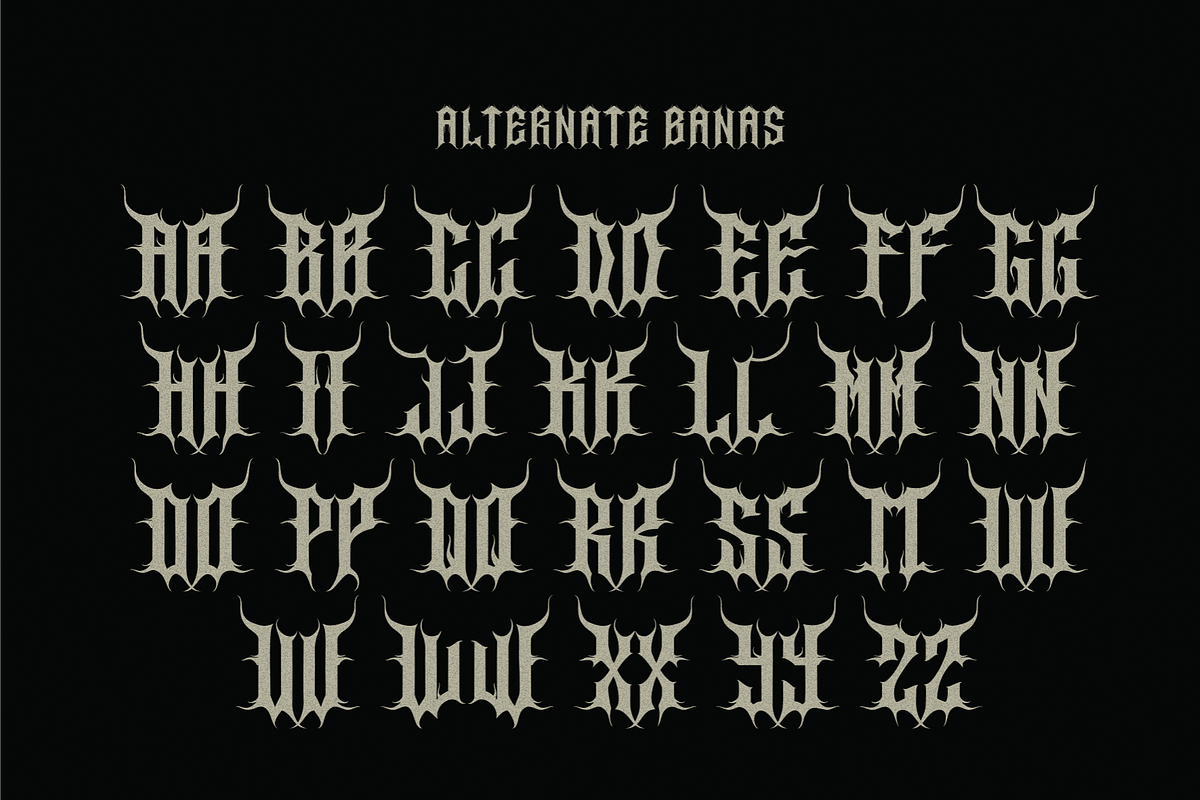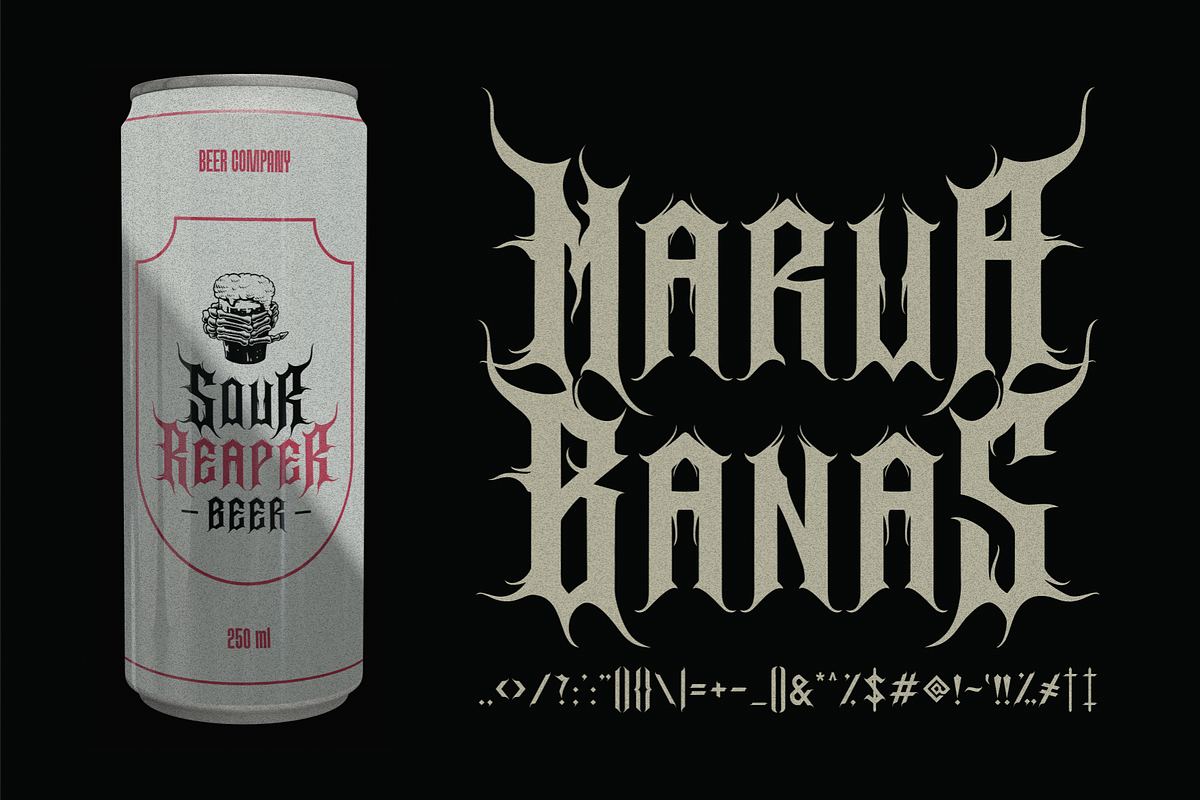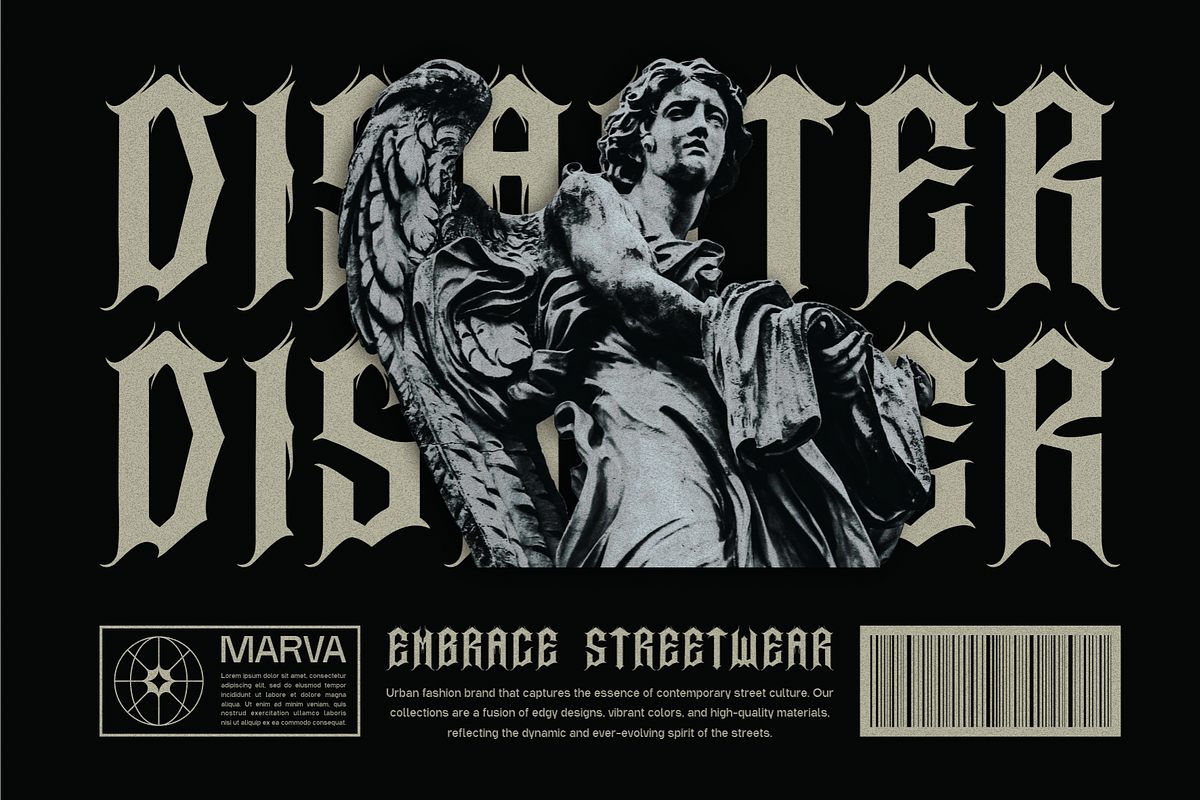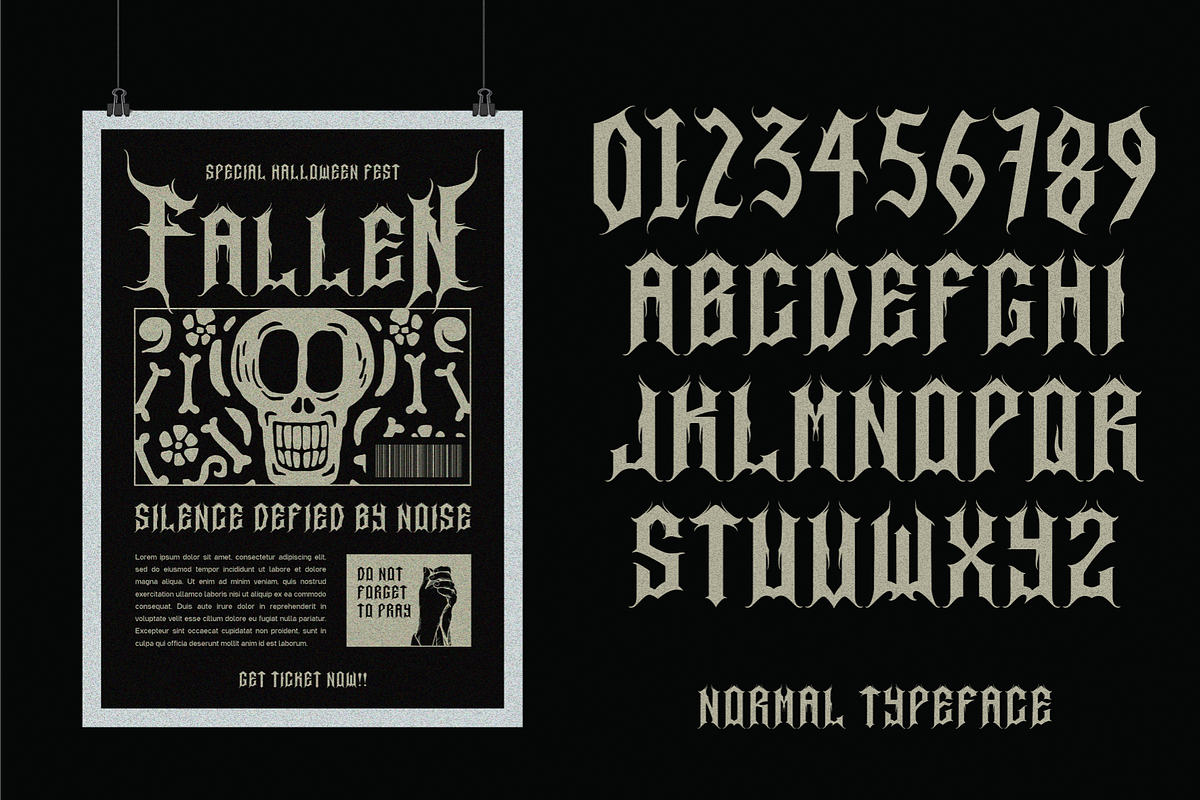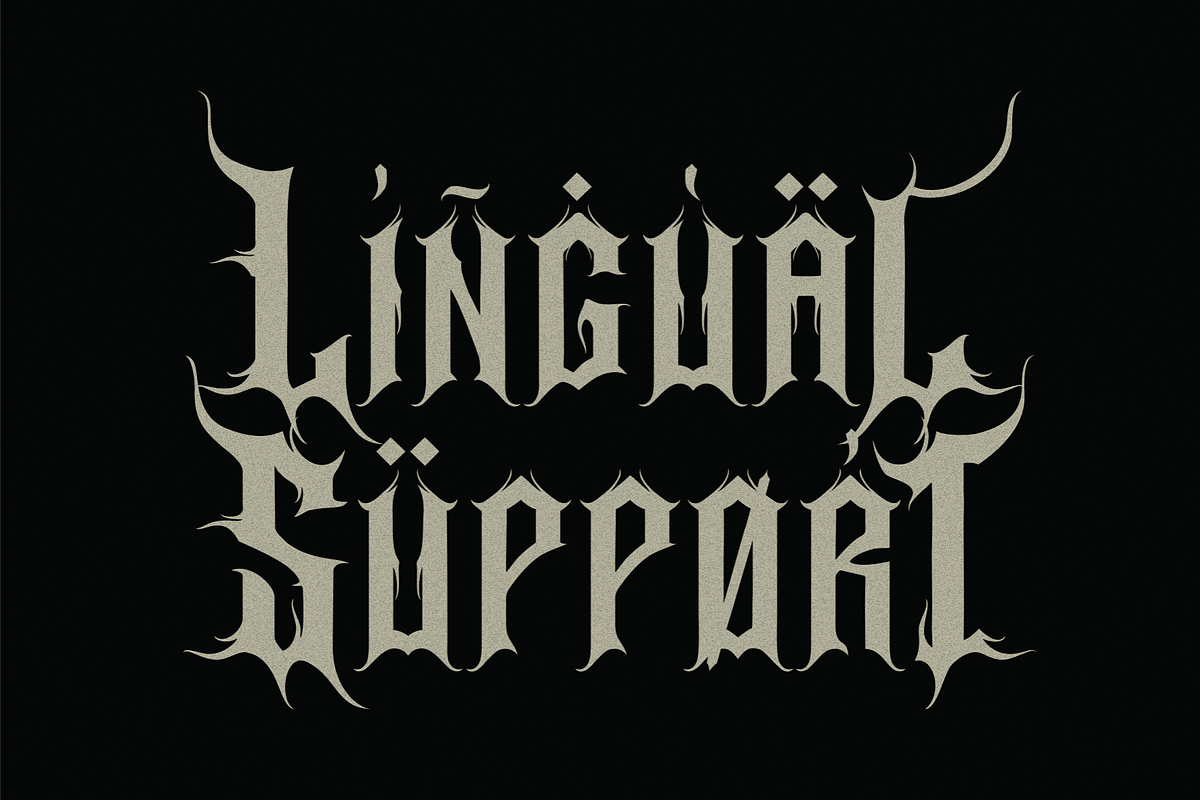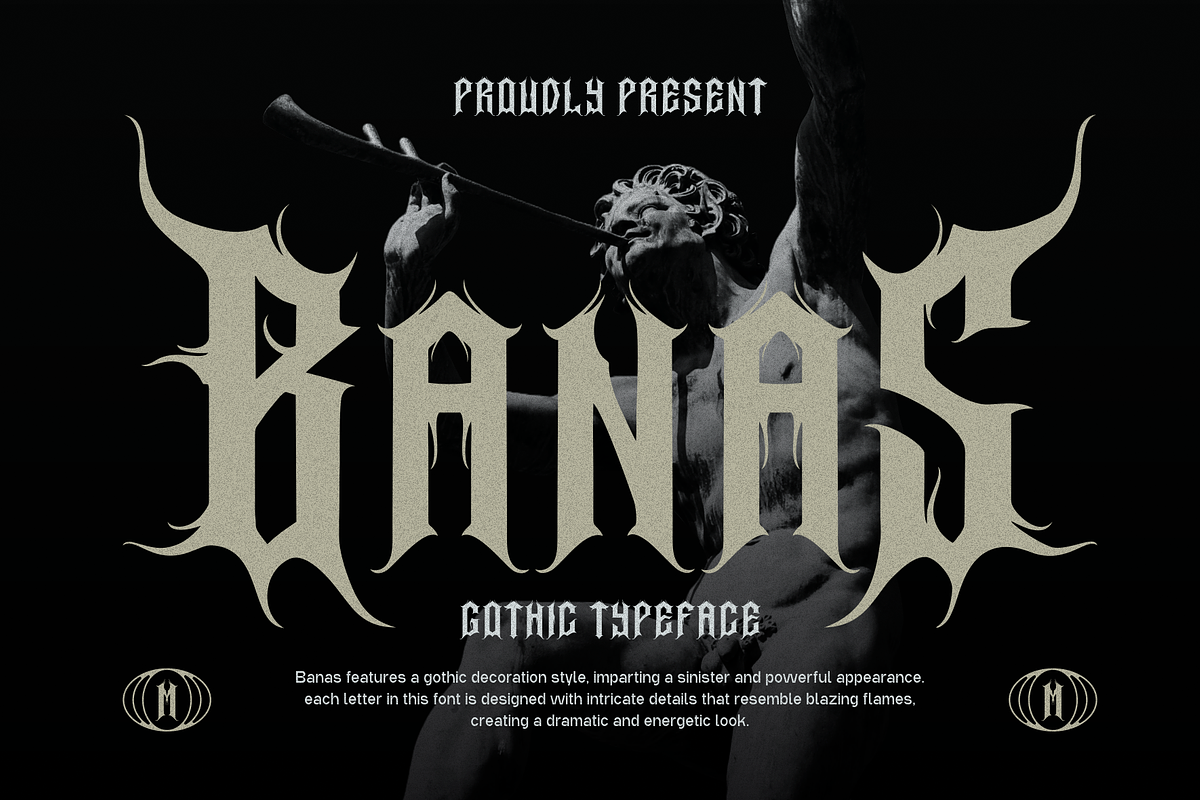
Banas
Introducing Banas is a metal font derived from the word "Banaspati," a demon in Indonesian mythology. This font symbolizes the strokes of fire, reminiscent of Banaspati, often depicted as a fearsome fiery entity.
Banas features a Gothic Decoration style, imparting a sinister and powerful appearance. Each letter in this font is designed with intricate details that resemble blazing flames, creating a dramatic and energetic look. Additionally, the font includes several alternatives for its uppercase letters, offering flexibility and variety in its application.
With its combination of gothic and decorative elements, Banas is the perfect choice for designs that require a touch of horror, mystery, and intensity. It is ideal for metal band logos, concert posters, album covers, tshirts and various other creative projects that aim to highlight a dark and fiery aesthetic.